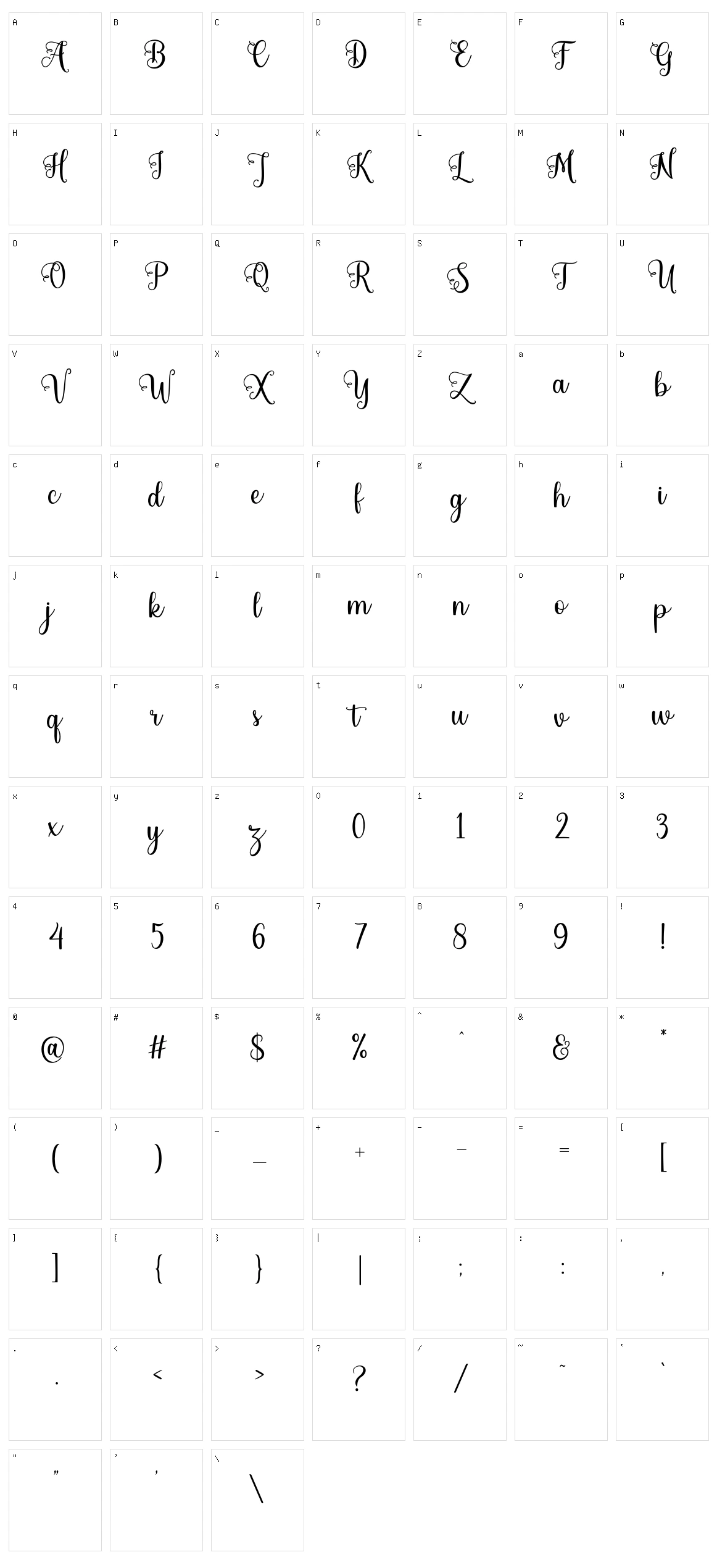
The free font Britney is carefully designed by Letternun, showcasing a thoughtful balance of creativity and usability and falls under the Script font style. When you download the ZIP file, it contains only 114.45 KB of font files, making it lightweight and quick to download. Please review the license details below to understand permitted usage and distribution rights. If license information is not available, we recommend using this font for personal projects only or contacting the author directly for commercial usage permissions.